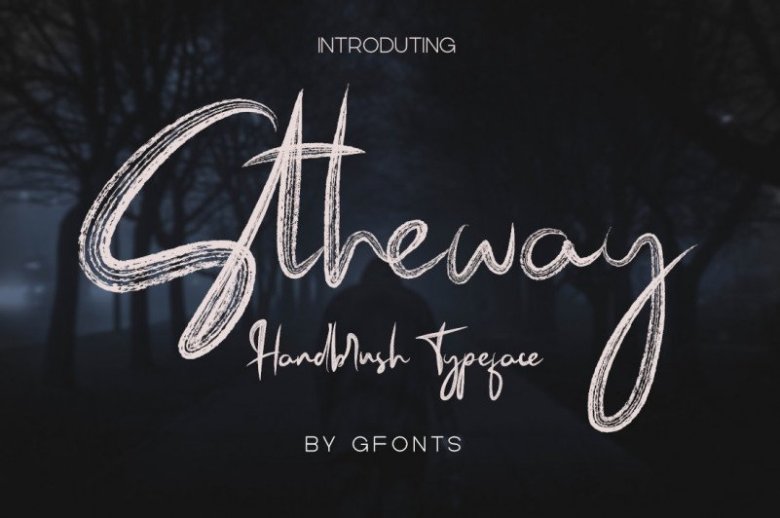
Stheway Brush Font
Introducing the new font Stheway Handwritten Font is a Hanwritten font with a distinctive and sharp Texture Brush. Stheway is made by handwriting on paper with a coarse type brush, Resulting in a consistent texture.
Stheway handwritten fonts can also be used for various projects such as stationery invitations, Social media, Logos, Weddings, Branding, Graphic design with the addition of several binders and swashes. And can be combined with various types of serif fonts to perfect the project you want to work on.